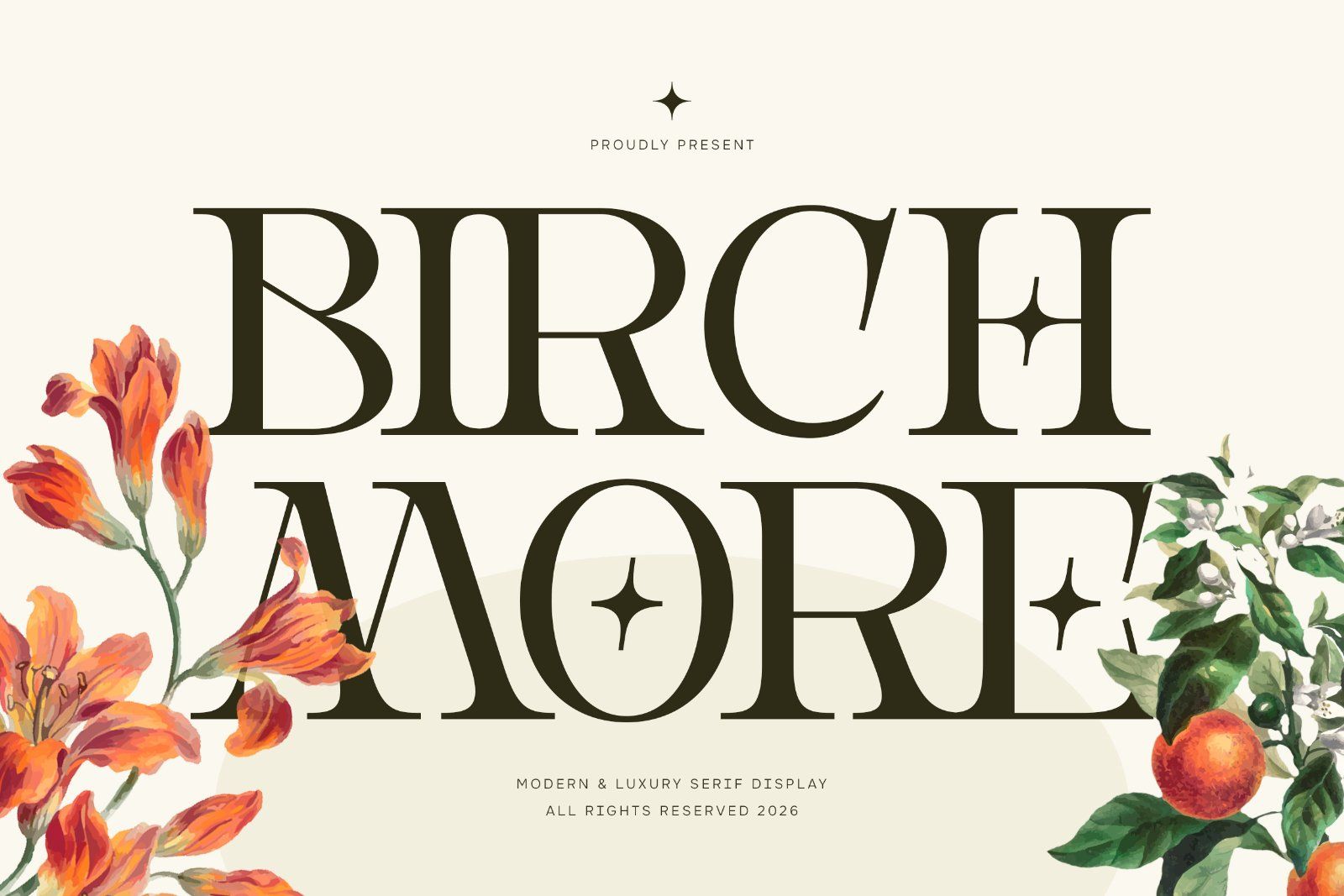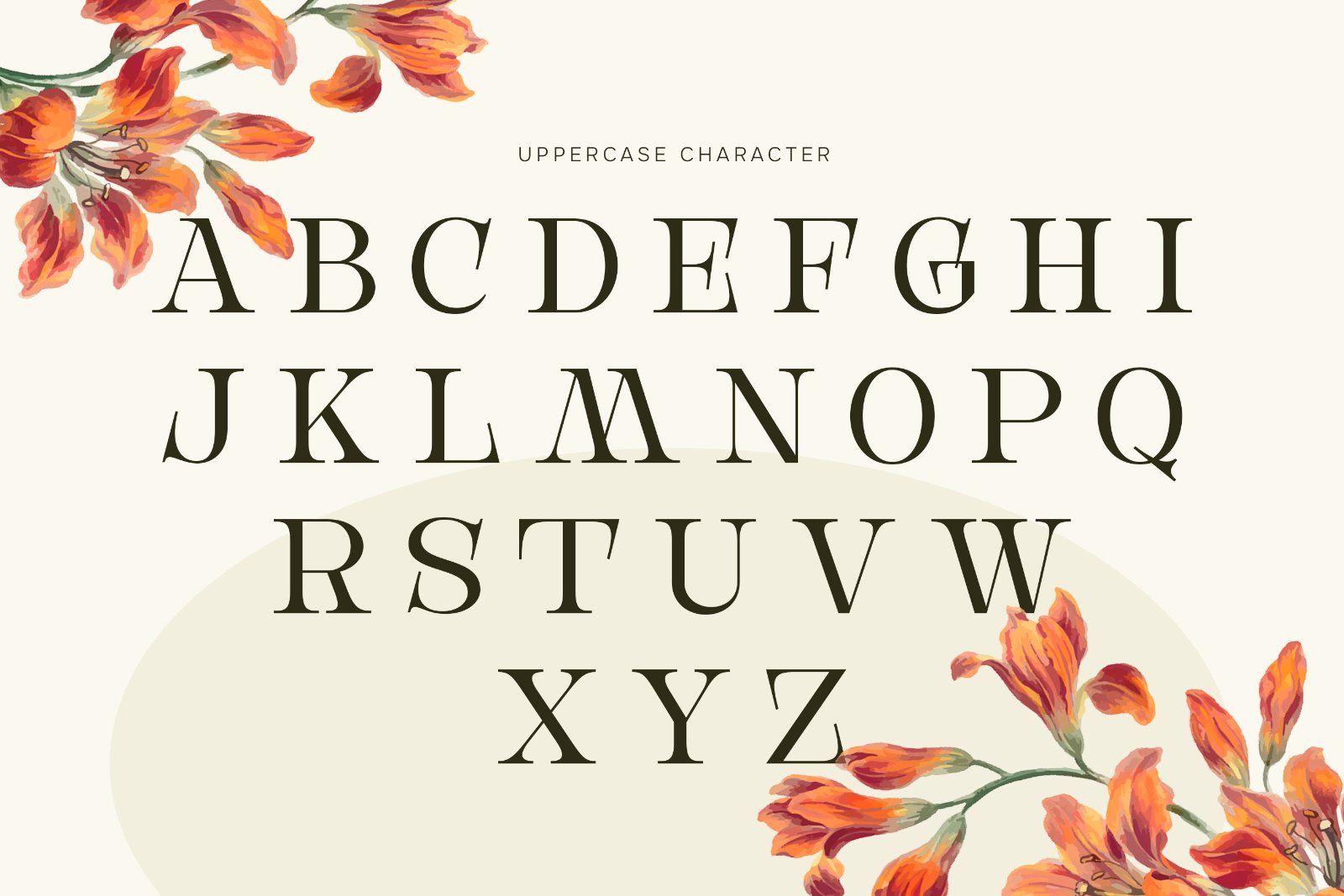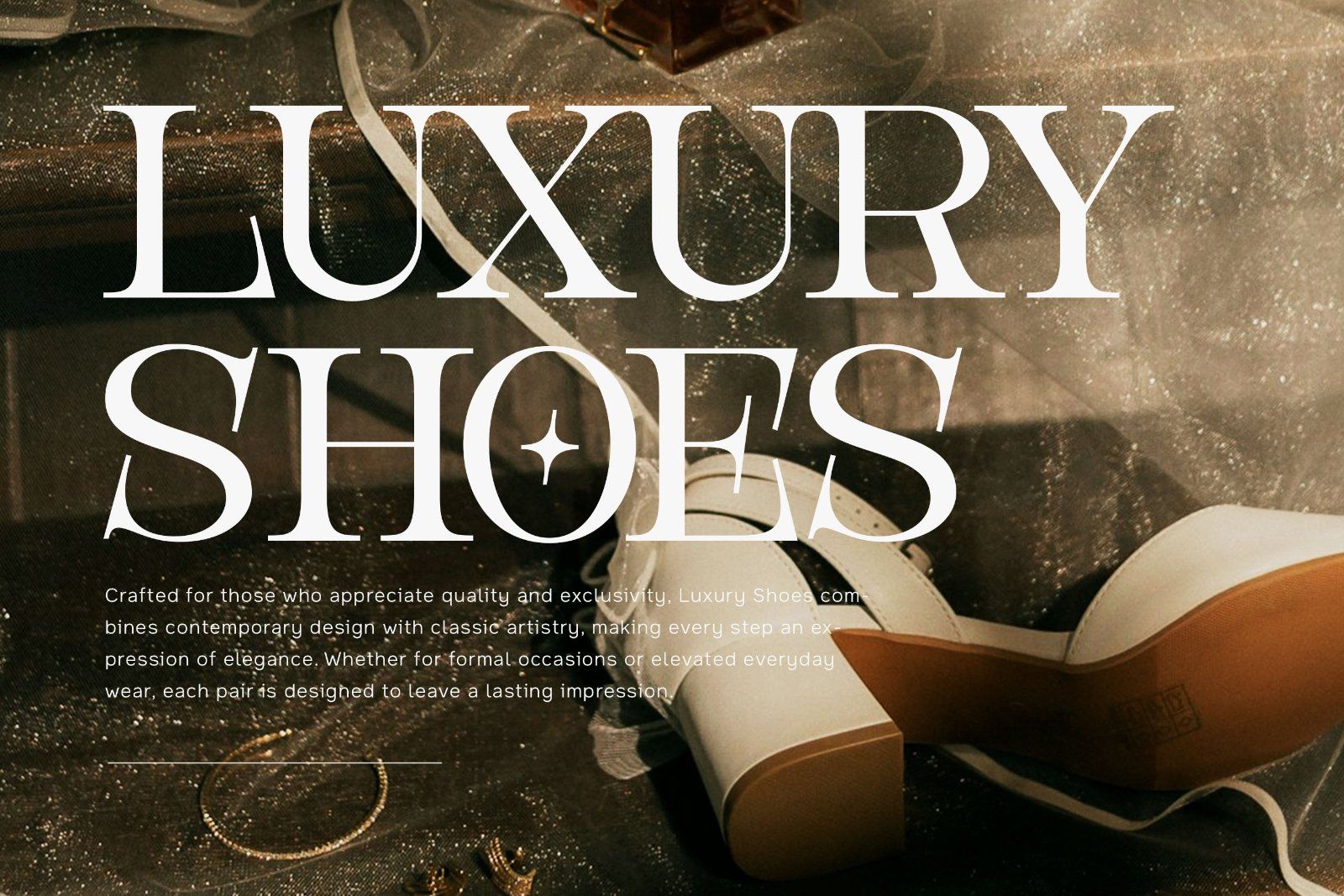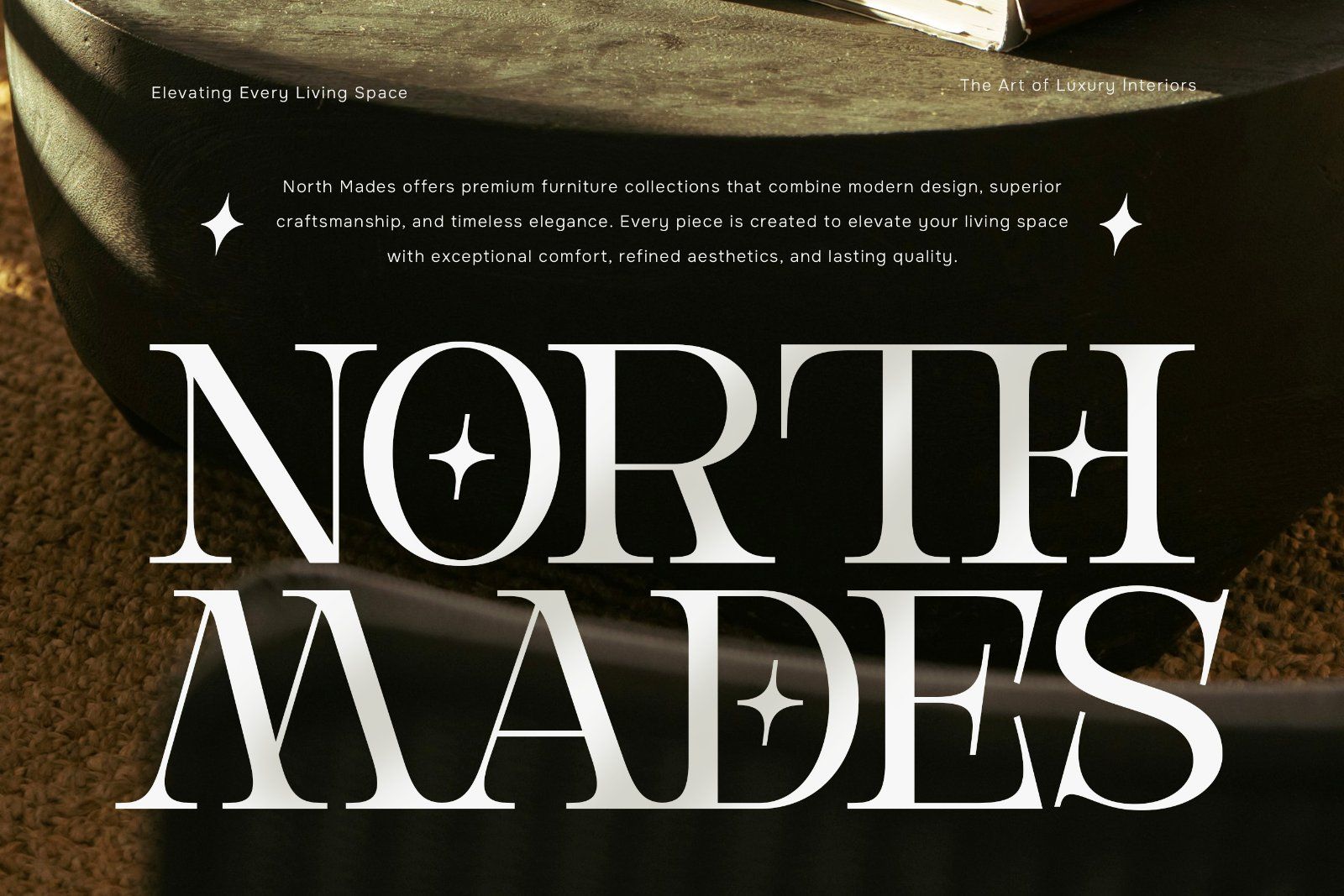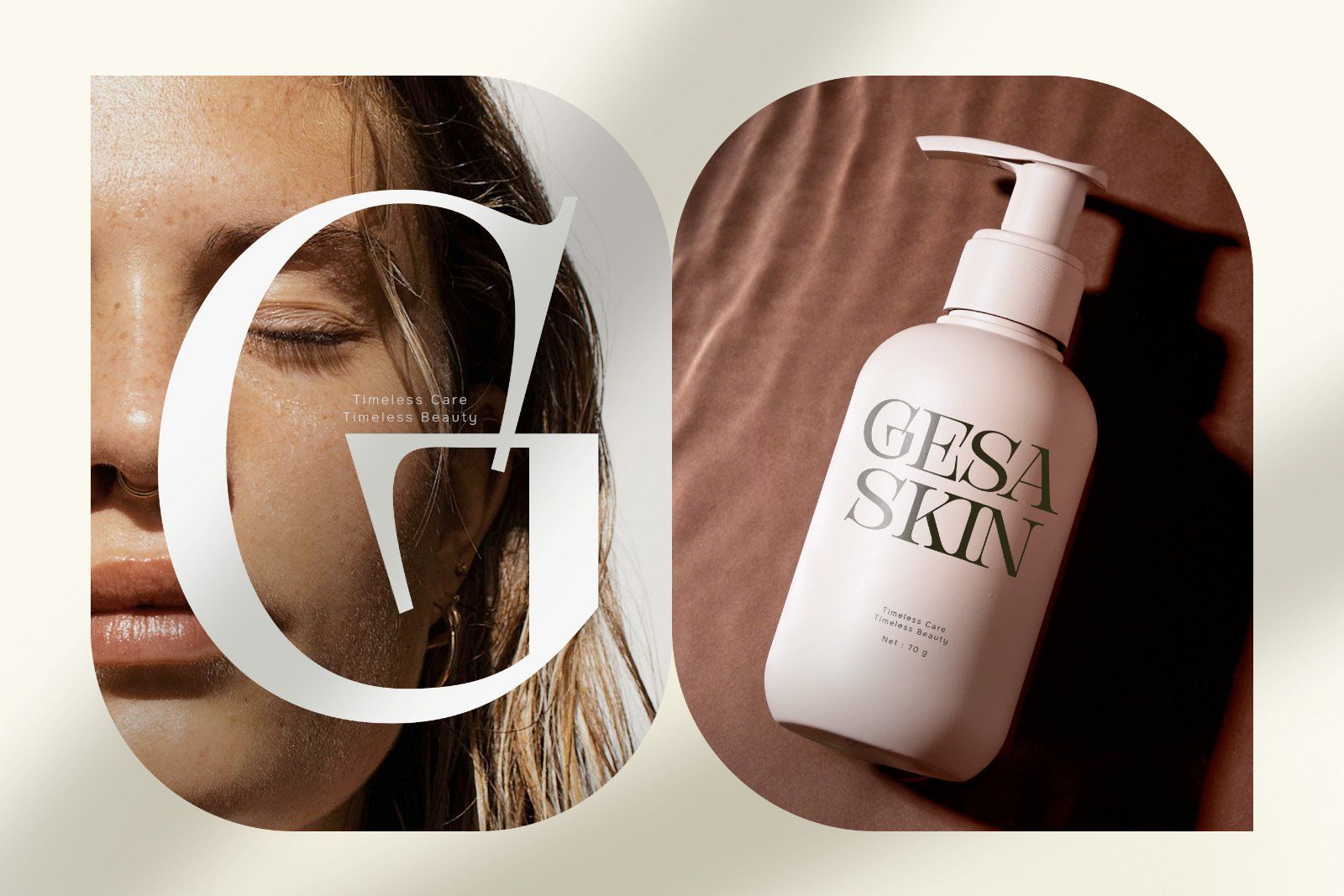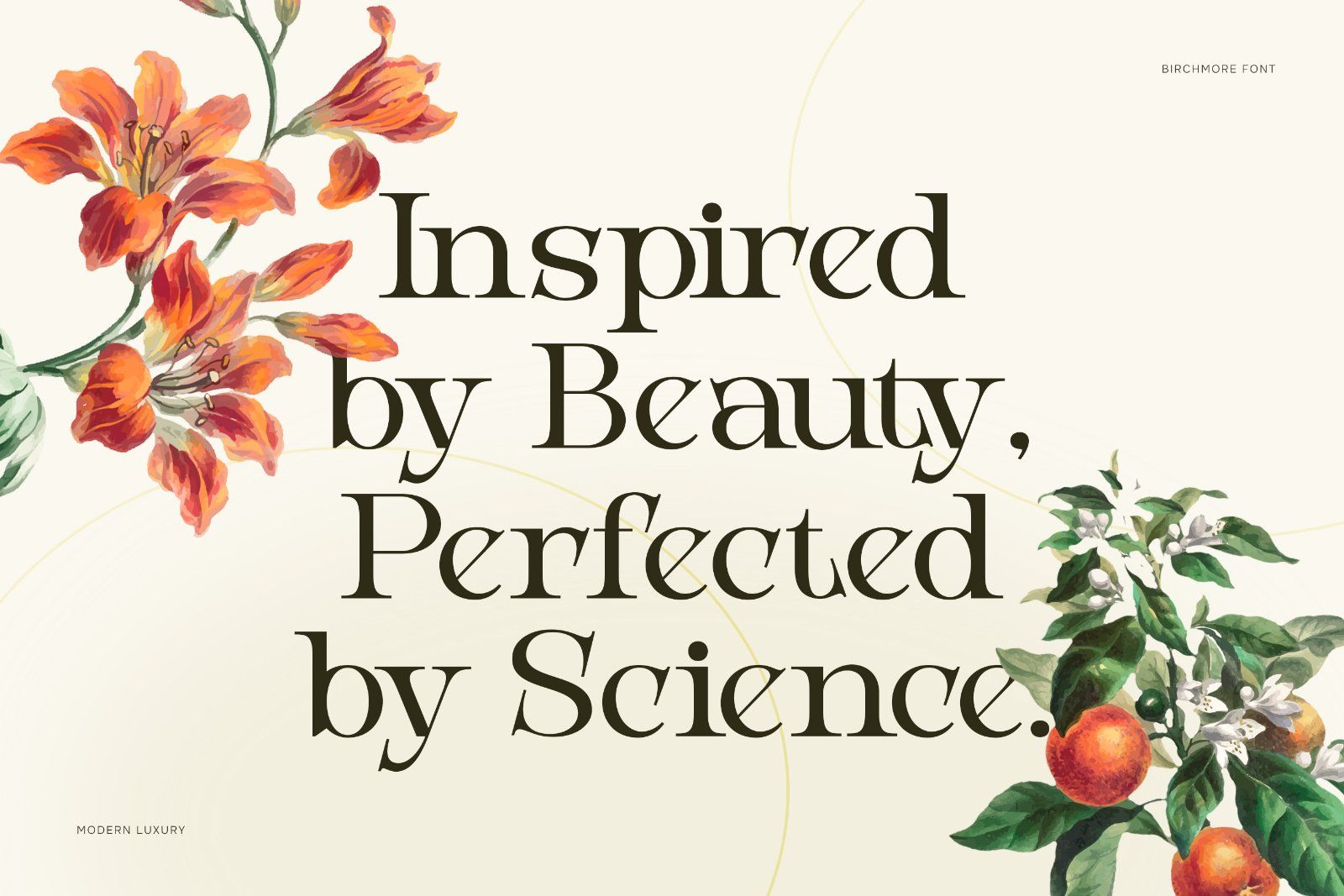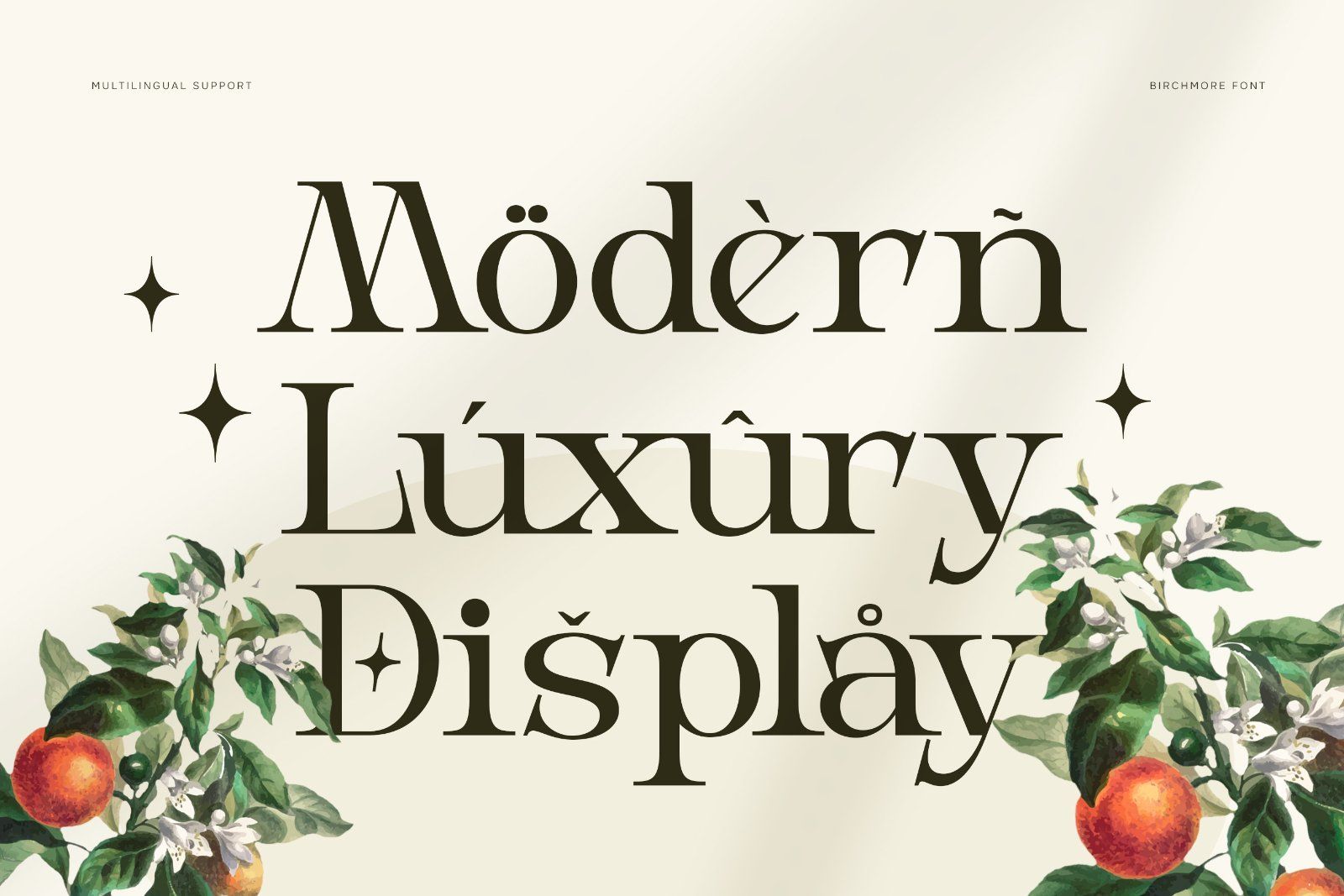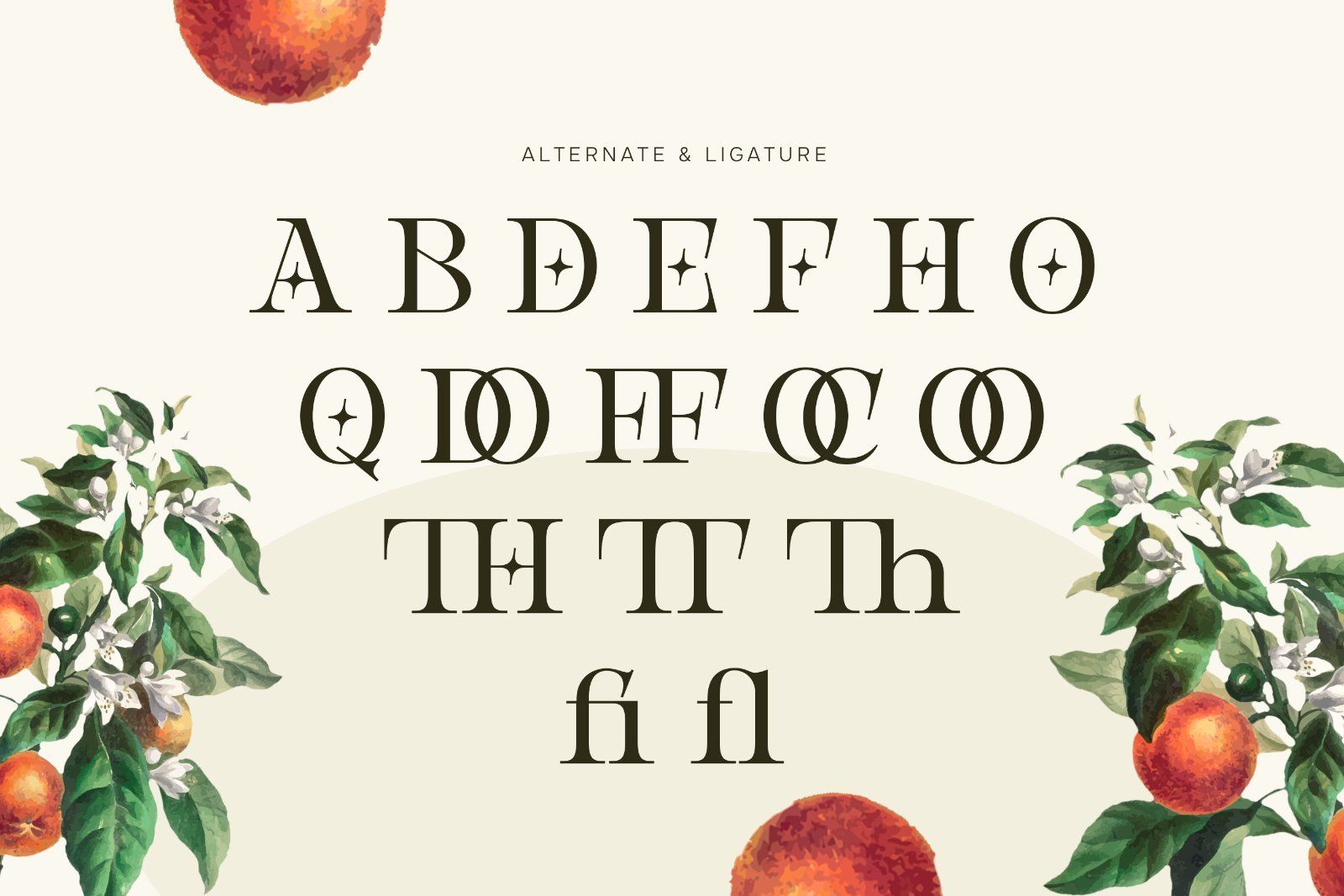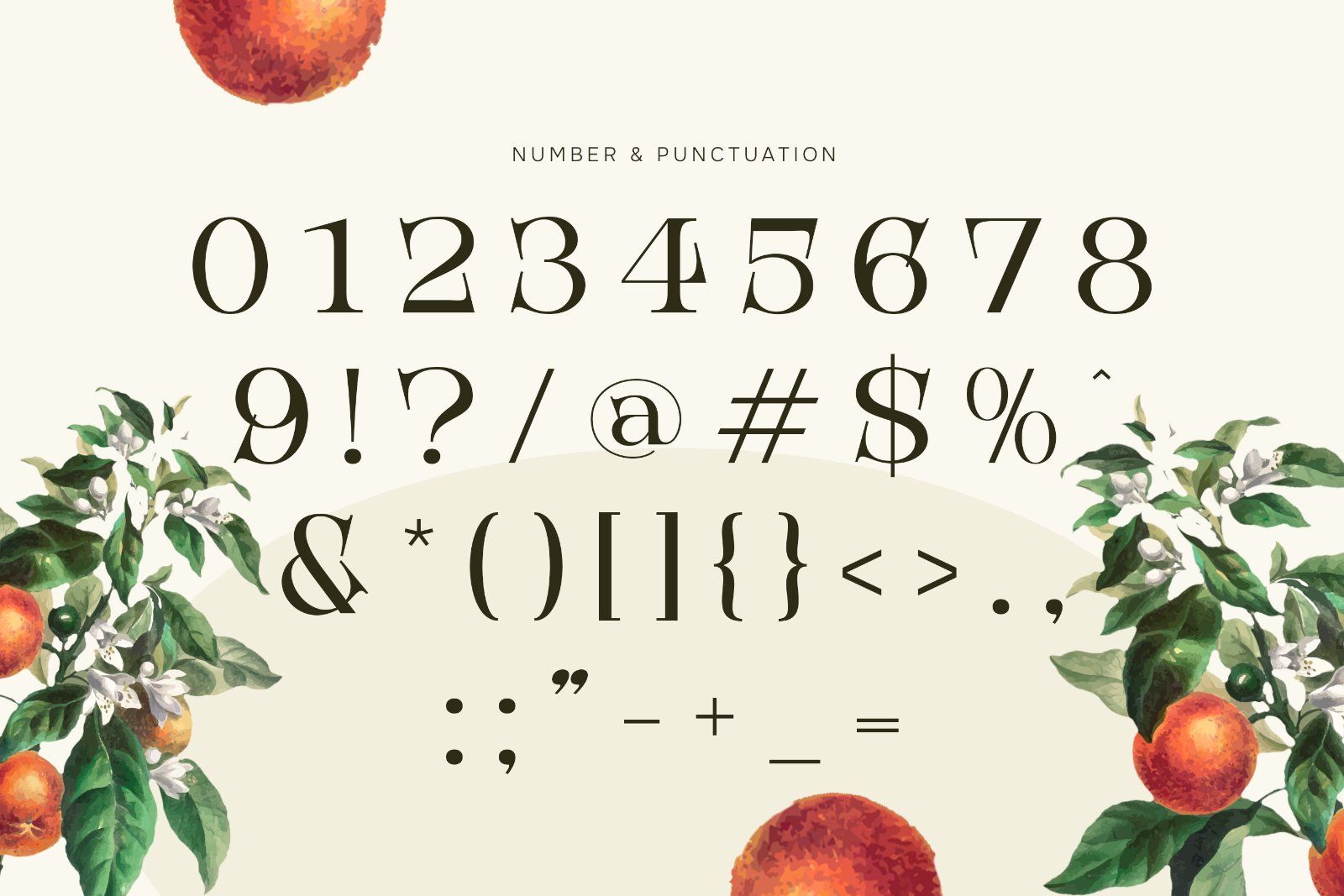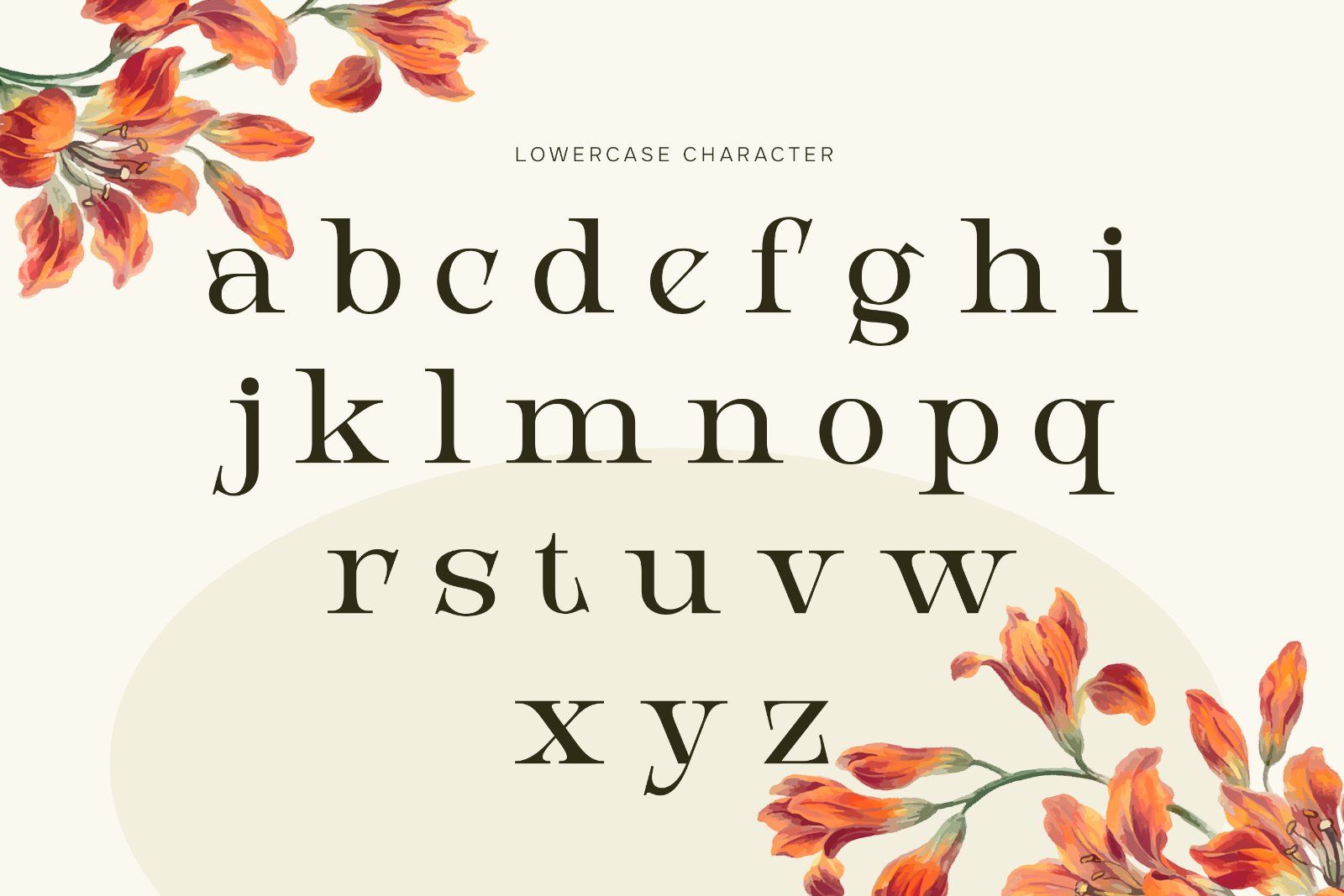
Birchmore is a modern and luxury serif display font that embodies elegance, sophistication, and timeless beauty. Designed with graceful high-contrast strokes, refined serif details, and beautifully balanced proportions, Birchmore creates a premium visual presence that instantly elevates any design. Its luxurious character blends classic serif craftsmanship with contemporary aesthetics, making it the perfect choice for brands that value style, exclusivity, and refinement.
Multilingual
Uppercase alphabet A-Z
Lowercase alphabet a-z
Numbers 0-9
Some punctuation
Some Alternates and Ligatures